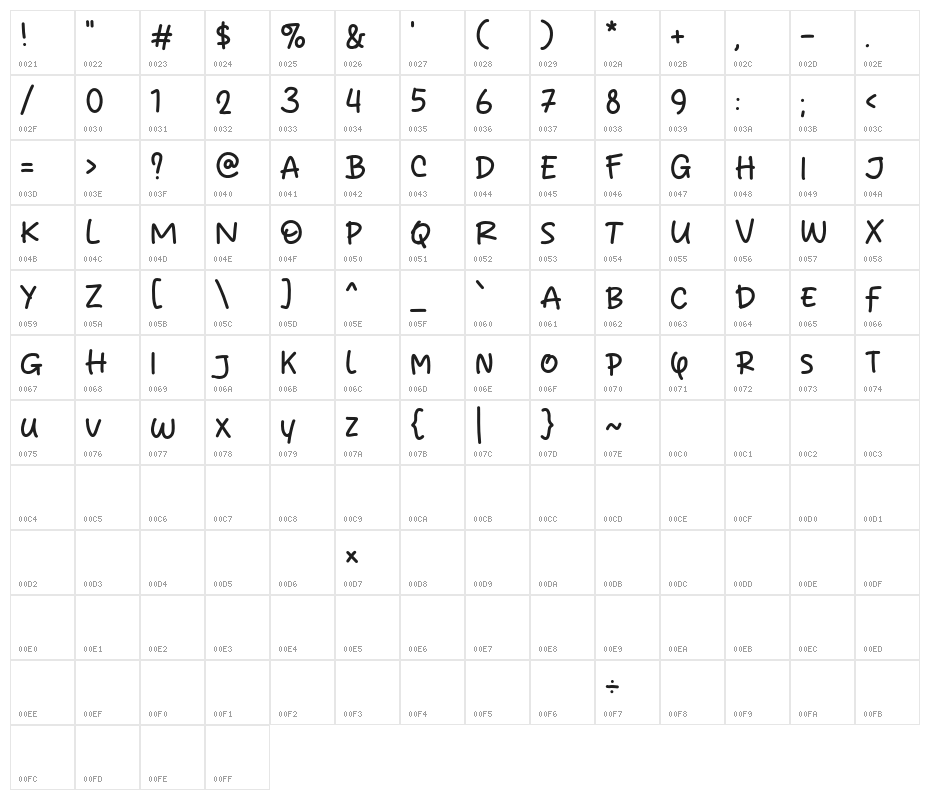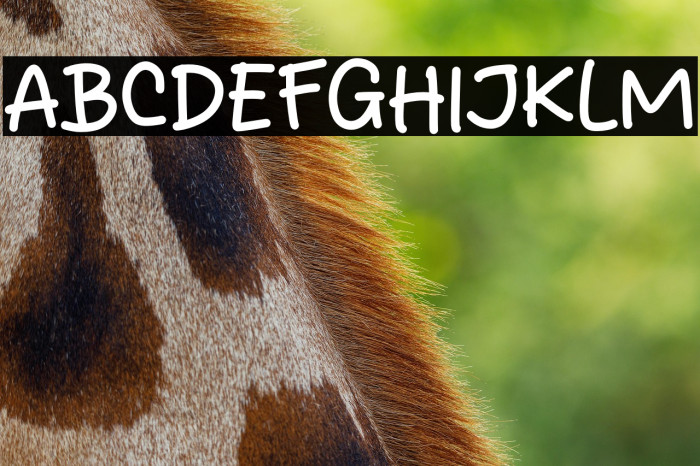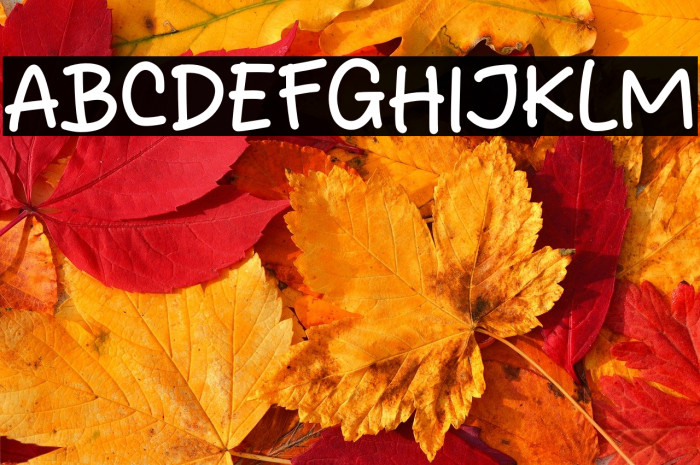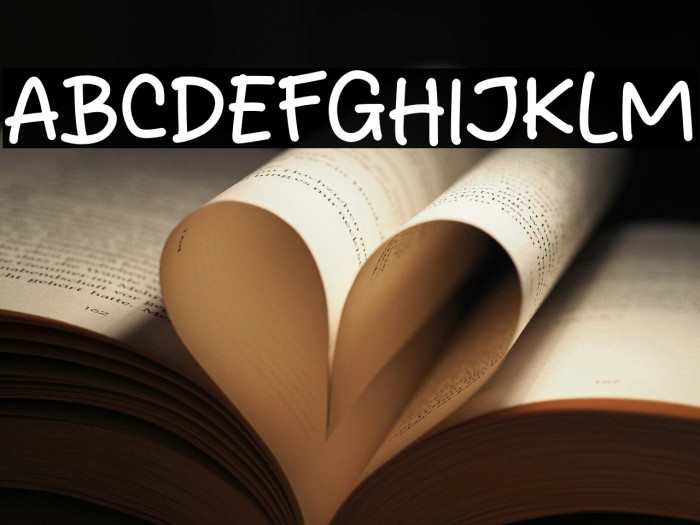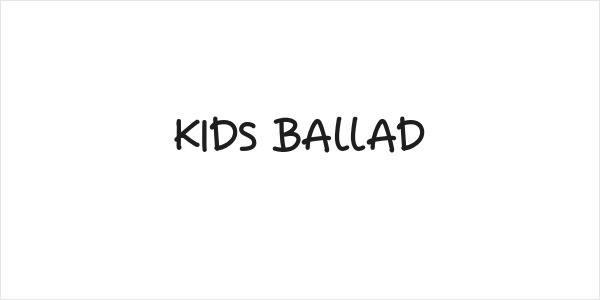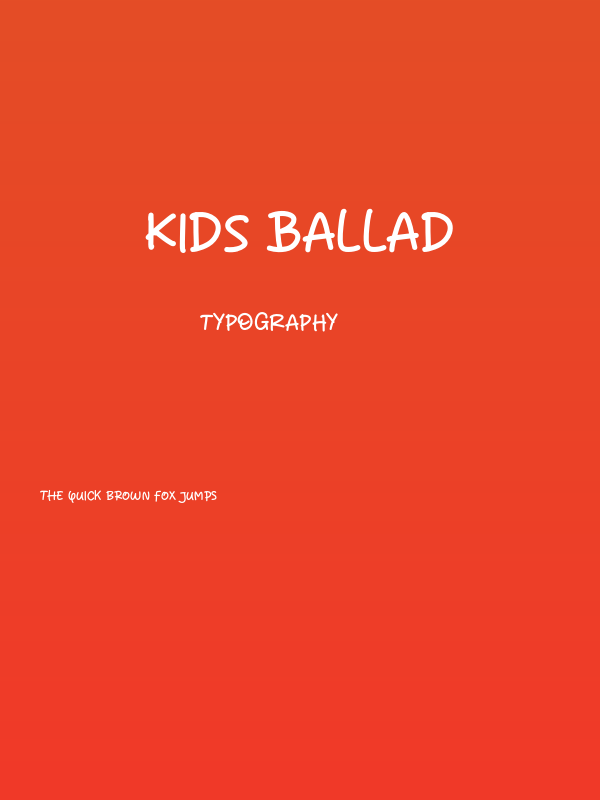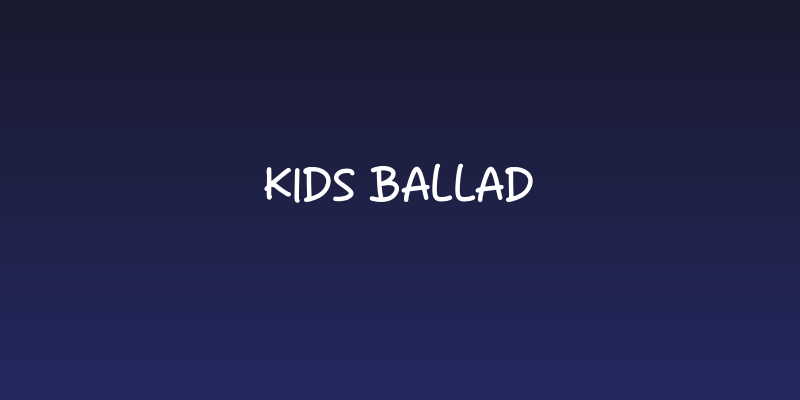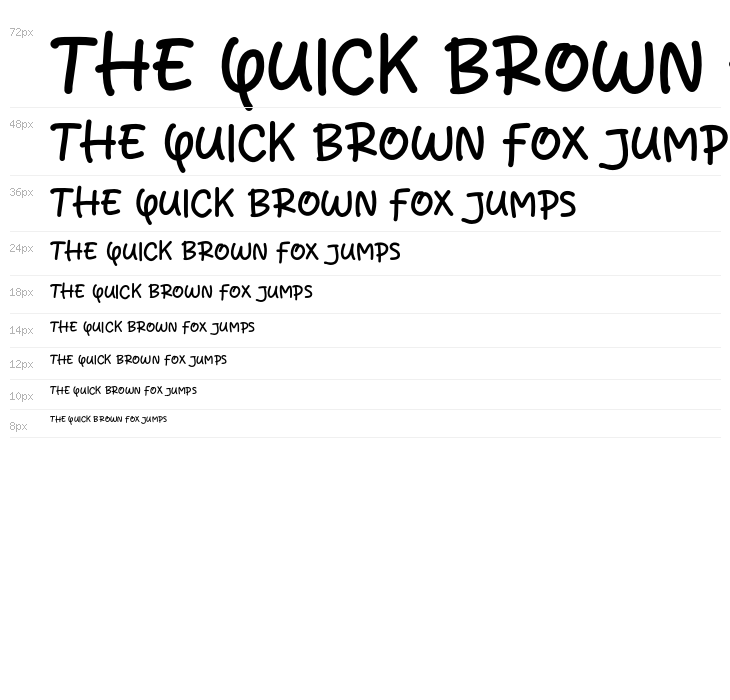
Kids Ballad Font
Kids Ballad Description
This playful and whimsical font features a handwritten style that exudes a sense of fun and creativity. The characters are bold and rounded, with a slightly uneven baseline that adds to its casual and approachable feel. The strokes are consistent in thickness, offering a uniform appearance across all characters. This font is perfect for projects that aim to capture a youthful and energetic vibe, making it ideal for children's books, educational materials, and playful branding. The spacing between characters is balanced, ensuring readability while maintaining its lively character.
| Use Case | Headlines, Logos, Children's materials |
| Proposed Projects | Ideal for children's books, educational materials, playful branding, and creative projects. |